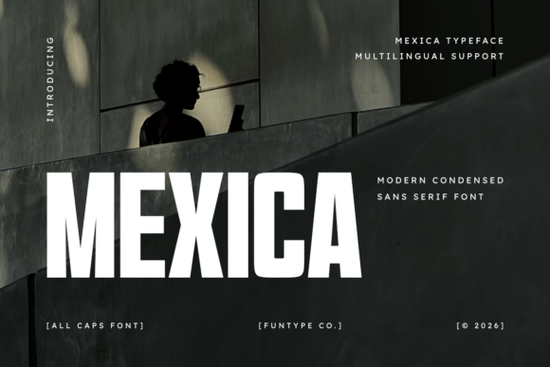
The Mexica Font is a standout choice for designers and creators looking for a bold, modern typeface that commands attention. With its towering, robust, and heavily stylized design, this all-caps font is ideal for high-impact display typography. Whether you're working on urban streetwear, custom merchandise, or digital posters, Mexica delivers a strong visual presence that aligns with contemporary design trends.
Designed as a condensed sans serif, Mexica features an ultra-narrow geometric block structure paired with thick strokes. This combination gives the font a striking, industrial feel that works well in both print and digital formats. Its clean lines and balanced proportions make it suitable for a wide range of applications, from signage to branding materials. The font is available in OTF and TTF formats, ensuring compatibility with most design software and printing systems.
What Makes Mexica Ideal for Display Typography?
Mexica’s design is optimized for situations where clarity and impact are essential. Its condensed structure allows for more text to fit in a smaller space without sacrificing readability. This makes it especially useful for headlines, labels, and other elements where space is limited but visual weight is important. The font's heavy strokes add a sense of authority, making it perfect for aggressive or dynamic designs.
For those working on custom merchandise, Mexica can elevate the look of t-shirts, stickers, and vehicle decals. Its sharp, geometric style complements modern aesthetics and adds a professional touch to any project. The font also supports multiple languages, which is a big plus for international designers or businesses targeting diverse audiences.
How to Use Mexica in Different Projects
If you're designing for print, Mexica’s clean structure ensures that it looks sharp on screen prints and stickers. For digital use, the font holds up well on posters, social media graphics, and website headers. Its versatility means it can be used across various platforms, from graphic design tools like Adobe Illustrator to online print-on-demand services.
When working with Mexica, consider pairing it with simpler fonts to balance the design. A minimalist sans serif or a classic serif can complement the boldness of Mexica without overwhelming the composition. This approach helps maintain visual harmony while still allowing the font to shine.
Best Practices for Using Mexica
- Use it for headlines and titles: Mexica’s bold style makes it perfect for grabbing attention in headlines, logos, and banners.
- Keep it simple: Avoid using too many fonts in one design. Let Mexica be the focal point.
- Test different sizes: The font works well at larger sizes, but it may lose clarity when used too small.
- Pair with complementary styles: Balance its strength with softer or more decorative fonts for a cohesive look.
Whether you're a designer, craft maker, or small business owner, Mexica Font offers a powerful tool for creating eye-catching visuals. Its clean structure, multilingual support, and professional appeal make it a valuable addition to any creative toolkit.
Consider experimenting with Mexica in your next project to see how it enhances your design work. With its strong presence and versatile use, it’s a font that can help you stand out in a competitive market.